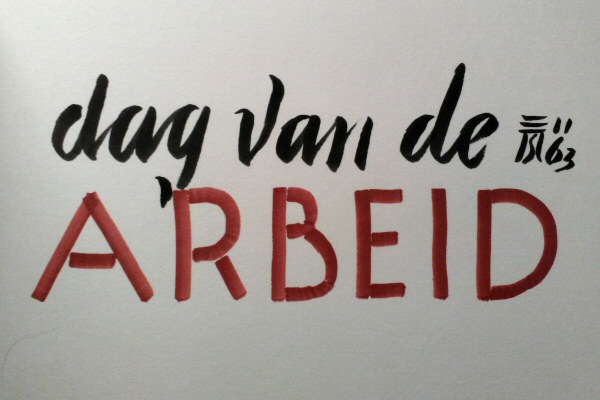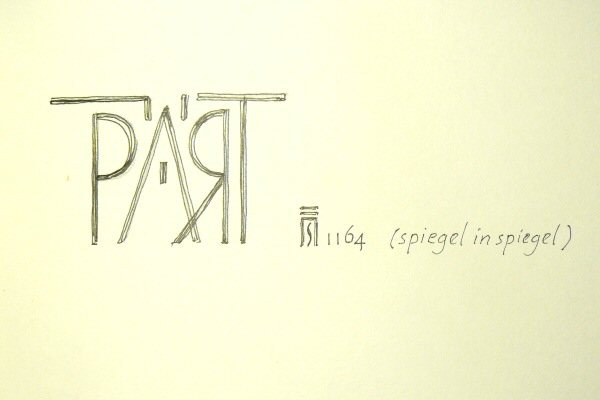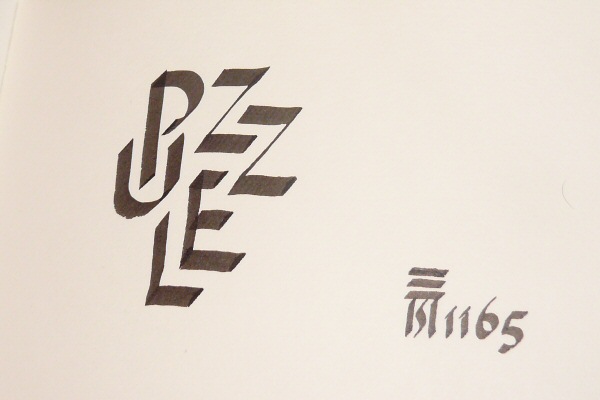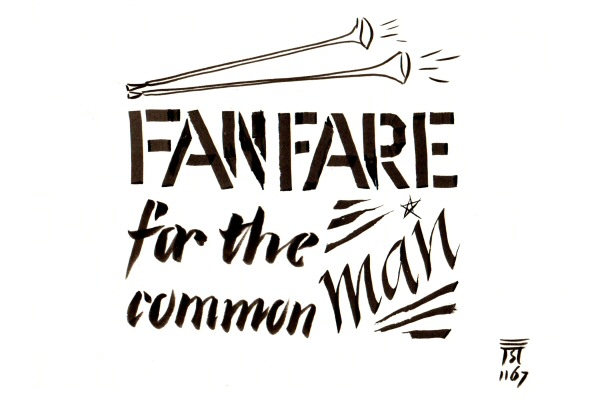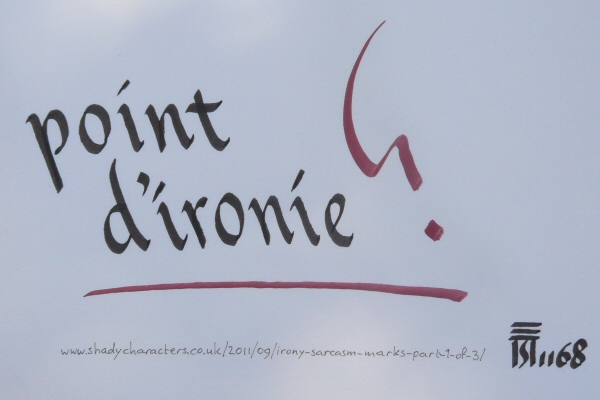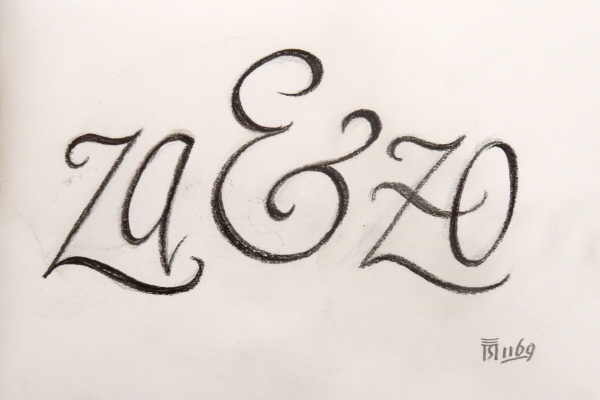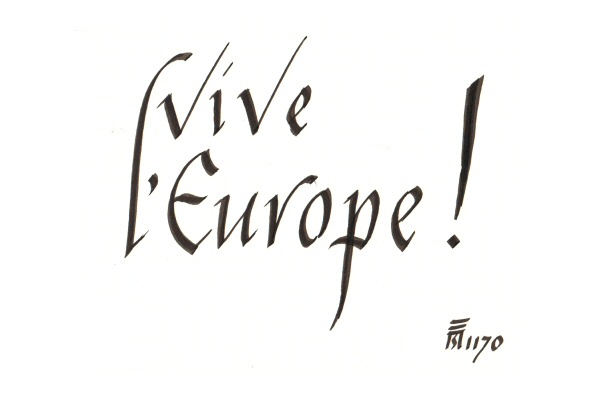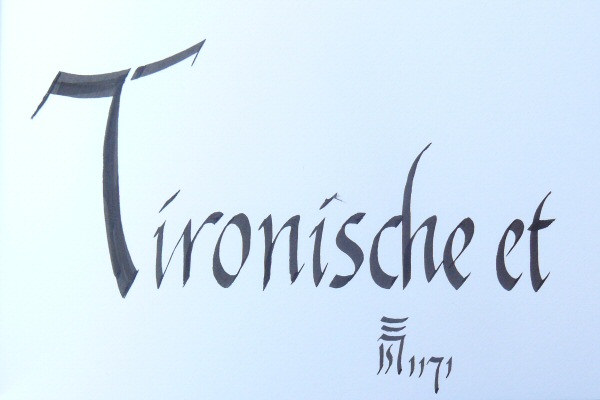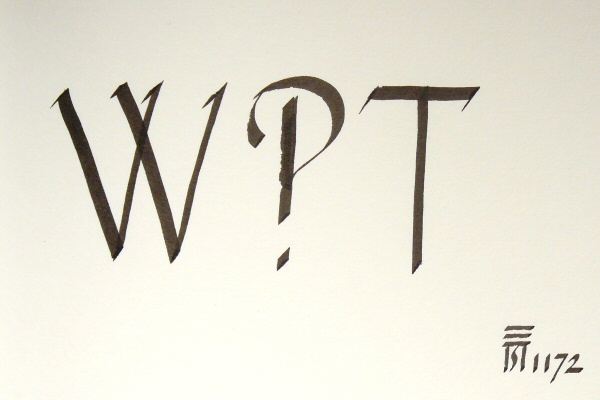
*) "I daresay you haven't had much practice," **)
**) Since 24 february 2014, I have been producing one calligraphic scribble each morning before breakfast, as an exercise, as well as a greeting card from time to time, sent to friends and acquaintances. This page shows the results of this project, and of my attempts to meet my self- imposed schedule for birthday cards and such. Sinds 24 februari 2014 maak ik elke ochtend vóór het ontbijt een kalligrafische krabbel. Deze pagina laat de resultaten van dit project zien, en mijn productie aan kaarten: verjaardagskaarten en dergelijke, en verder van tijd tot tijd een wenskaart voor vrienden en kennissen.
said the Queen. "When I was your age, I always did it for half-an-hour a day. Why, sometimes I've believed as many as six impossible things before breakfast."
- Lewis Carroll, Through the Looking-Glass
BB1192 not me, it's just the shower tap
BB1192 niet ik, 't is de douchekraan maar
BB1191 ... on type
BB1190 inspiring evening at High On Type's All Eyes On Type festival
BB1190 inspirerende avond bij het festival All Eyes On Type van High On Type
BB1189 visiting High On Type's «All Eyes On Type» festival today — show, workshops and lectures
BB1189 vandaag naar High On Type's «All Eyes On Type» festival — tentoonstelling, workshops en lezingen
BB1187 dawn treading? too late for the dawn...
BB1187 te laat vor de dauw...
BB1186 really enjoyed Eric Vloeimans & Holland Baroque last night in Utrecht
BB1186 echt genoten van Eric Vloeimans & Holland Baroque gisteravond in Utrecht
BB1184 what a great musical weekend, but ... ouch!
BB1184 wat een geweldig musicalweekeinde, maar ... auw!
BB1183 musical shows sun 21 may (14:00/20:00), ZIMIHC Theatre, Zuilen (Utrecht), see musicalos.nl
BB1183 musicalvoorstellingen zo 21 mei (14:00/20:00), ZIMIHC Theatre, Zuilen (Utrecht), zie musicalos.nl
BB1182 musical shows sat 20th (20:00) and sun 21 (14:00/20:00), ZIMIHC Theatre, Zuilen (Utrecht), see musicalos.nl
BB1182 musicalvoorstellingen za 20 (20:00) en zo 21 (14:00/20:00), ZIMIHC Theatre, Zuilen (Utrecht), zie musicalos.nl
BB1181 musical shows sat 20th (20:00) and sun 21 (14:00/20:00), ZIMIHC Theatre, Zuilen (Utrecht), see musicalos.nl
BB1181 musicalvoorstellingen za 20 (20:00) en zo 21 (14:00/20:00), ZIMIHC Theatre, Zuilen (Utrecht), zie musicalos.nl
BB1180 yesterday was the hottest May 17th ever registered in the Netherlands (ie since 1900), and today — well, you can see...
BB1180 gisteren was de warmste 17de Mei ooit in Nederland gemeten (d.w.z. sinds 1900), en vandaag — nou ja, je ziet het...
AB1179 today'sGoogle doodle: the mechanism of Antikythera (Andikithira), discovered a 115 years ago » wikipedia — google on youtube
Michael Wright, former curator of mechanical engineering at the Science Museum in London, has built a working replica of the mechanism:
AB1179 Googledoedel van de dag: het mechaniek van Antikythera (Andikithira), 115 jaar geleden ontdekt » wikipedia — google op youtube
Michael Wright, voormalige curator van mechanische techniek aan het Science Museum in London, heeft er een replica van gebouwd:
BB1177 (smoke)
BB1175 Ah! The Radiant Octothorpe!
BB1175 Oh! De Stralende Octothorpe!
BB1174 the parassrass sign?‽ — ‘§’ = ‘signum sectionis’
BB1174 't parassraassteken‽ — ‘§’ = ‘signum sectionis’
BB1173 ellipsis (deletion mark: ‘…’)
BB1173 ellipsis (weglatingsteken: ‘…’)
BB1172 wat‽ (what‽)
‘‽’ (the interrobang) can be used to express surprise.
BB1172 wat‽
‘‽’ (de interrobang) kan worden gebruikt om verrassing uit te drukken
AB1171 Tiro was Cicero's secretary and the inventor of a stenographic script, which contained the symbol ‘⁊’, which stood for ‘et’ (‘en’), the so-called ‘Tironian et’
AB1171 Tiro was Cicero's secretaris en de bedenker van een stenografisch schrift, dat het symbool ‘⁊’ bevatte, dat ‘et’ (‘en’) betekende, de zogenaamde ‘Tironische et’
BB1170 Macron président